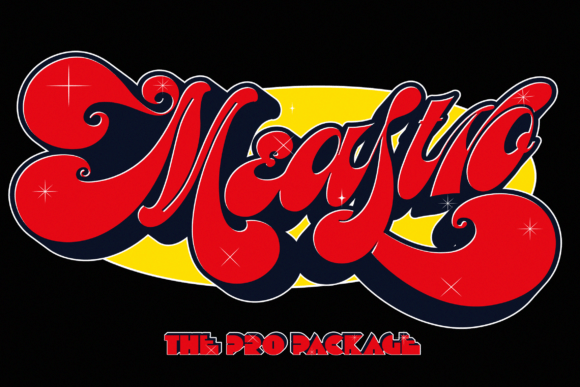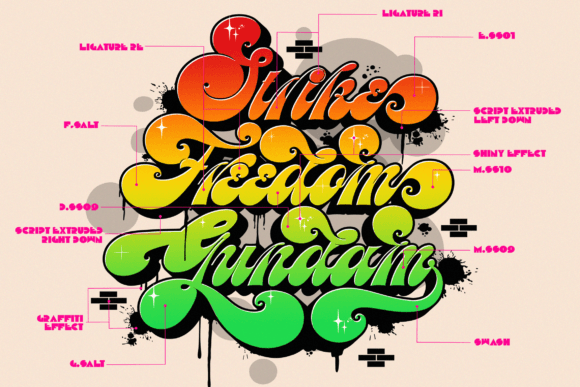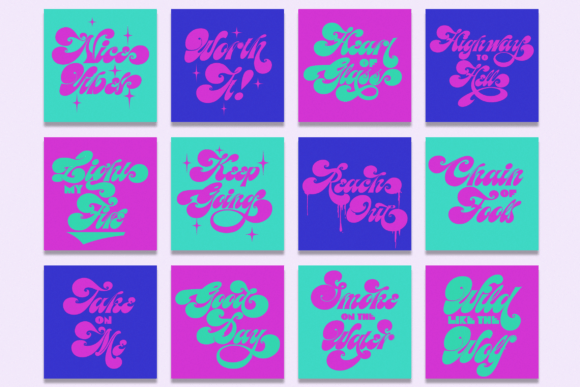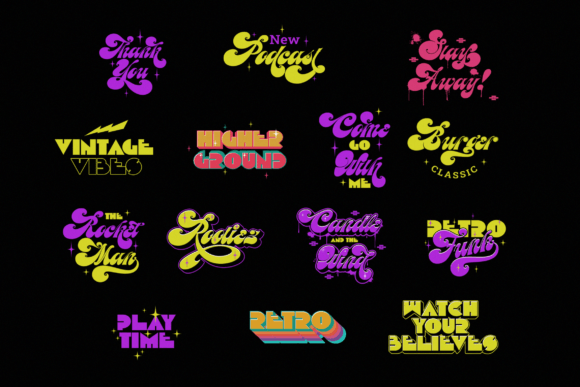
Meastro Duo Font
About the Meastro Duo Font
Crafted with precision, the Meastro Duo Font is ready to bring your ideas to life. Meastro is a cool, retro-style font duo (display and bold script). A little bit groovy, this font is perfect for creating eye-catching designs. Add it confidently to your projects and you will be amazed by the outcome generated!
Meastro Duo excels in display applications such as logos, headlines, posters, and short-form marketing materials. Its retro-style and bold script lend themselves well to projects requiring a vintage or groovy aesthetic. Avoid using it for body text or long paragraphs; its decorative nature makes it less legible at smaller sizes.
The font’s personality is bold and playful, yet retains a degree of sophistication. It’s ideal for brands targeting a younger demographic or those seeking a retro-inspired feel with a modern twist. Consider pairing Meastro with a clean sans-serif like Open Sans for body text or a geometric sans-serif like Futura for a more modern contrast.
For a softer contrast, a delicate serif like Lato would also work well, balancing the boldness of Meastro. Avoid pairing it with other highly decorative or script fonts, as this could create visual clutter.